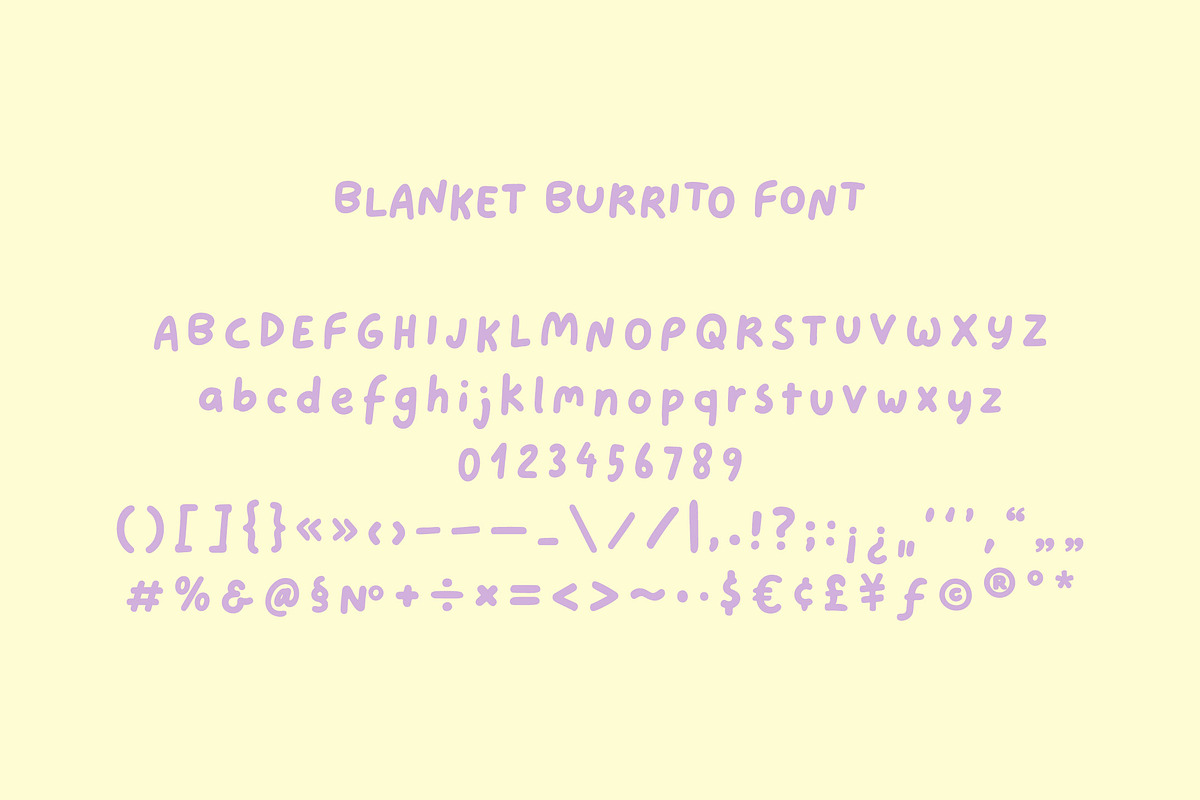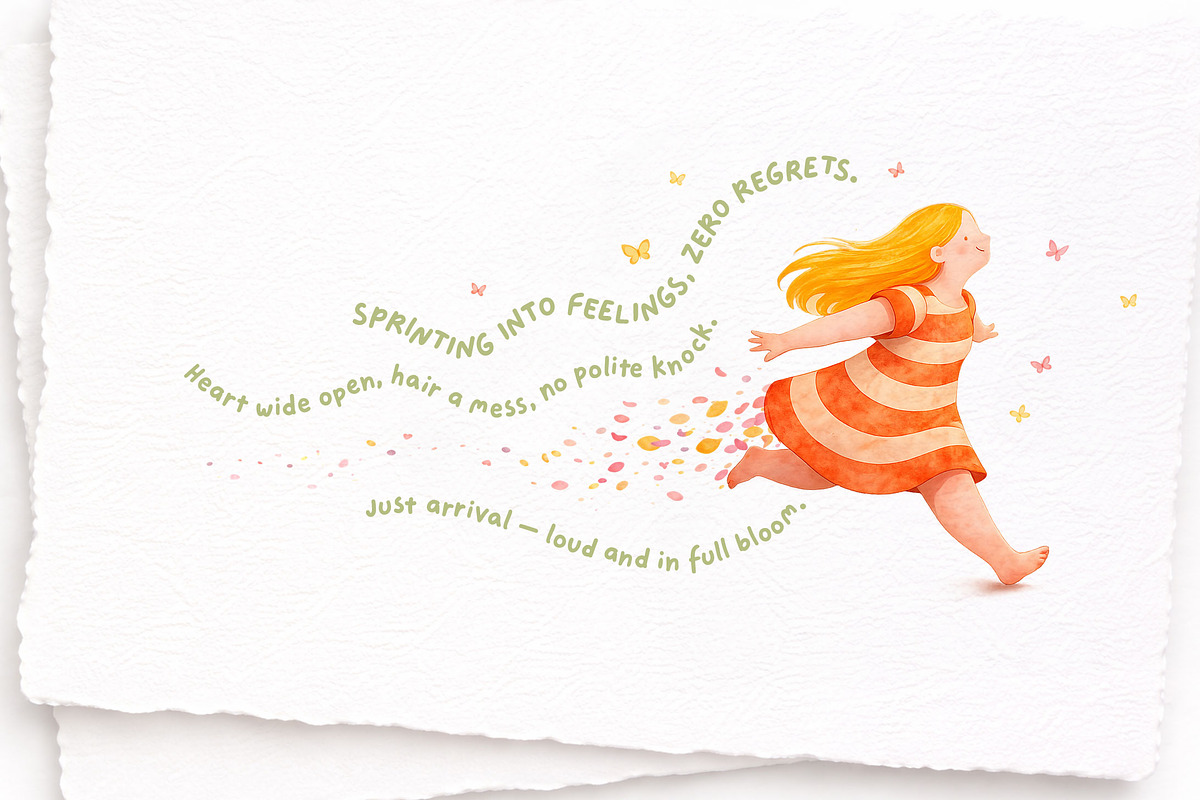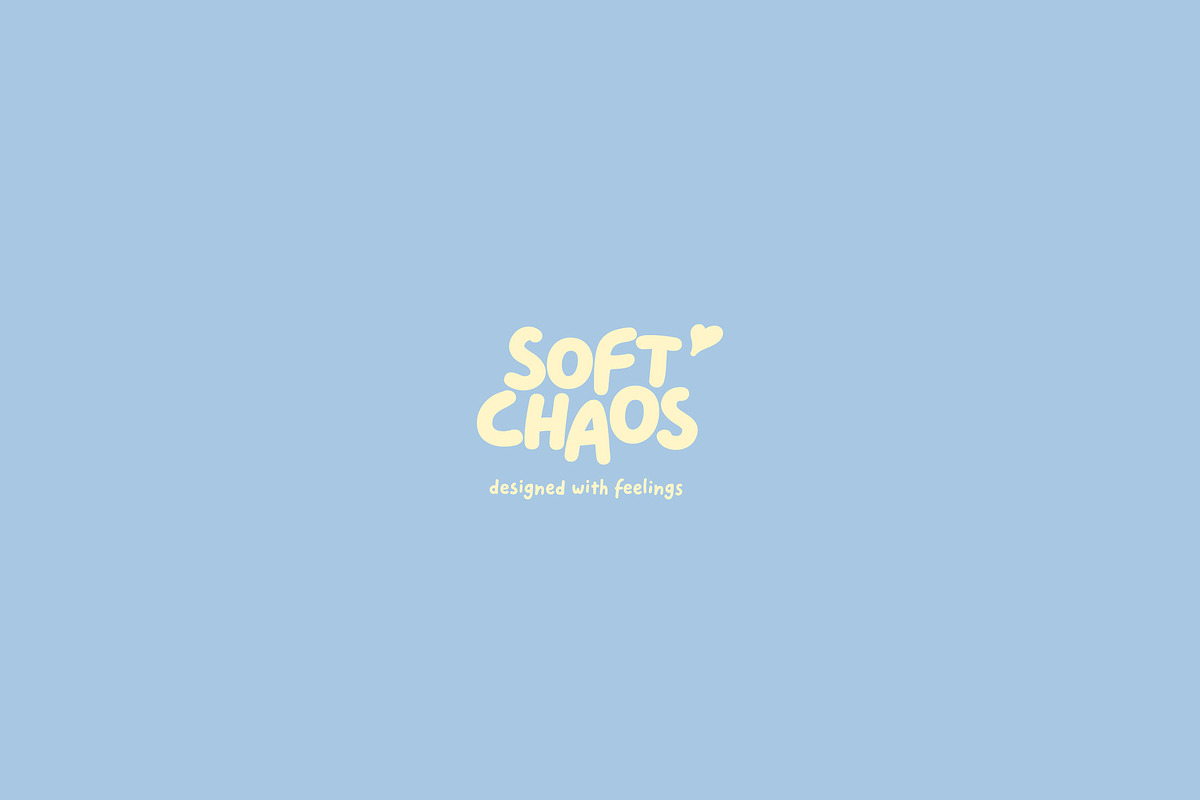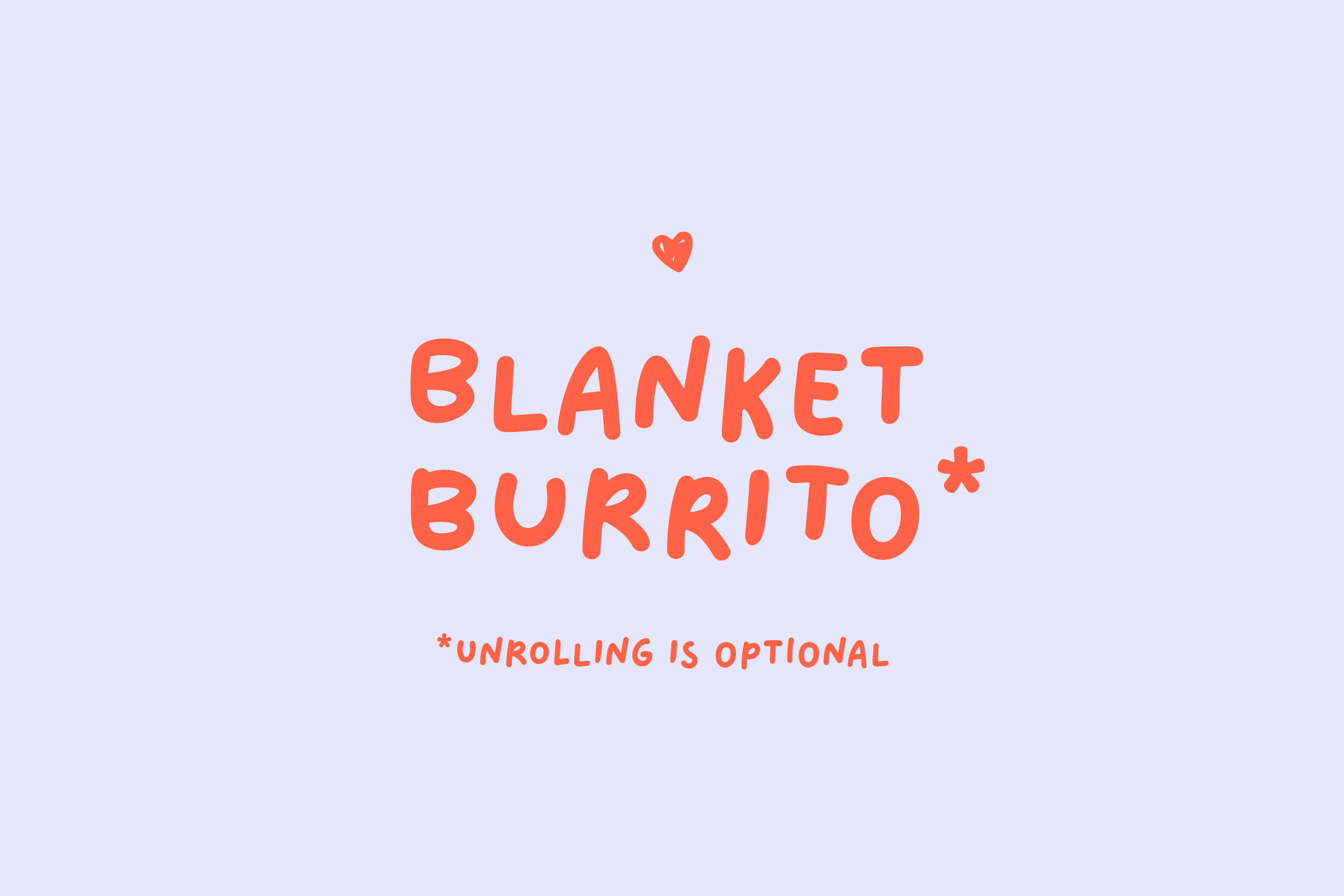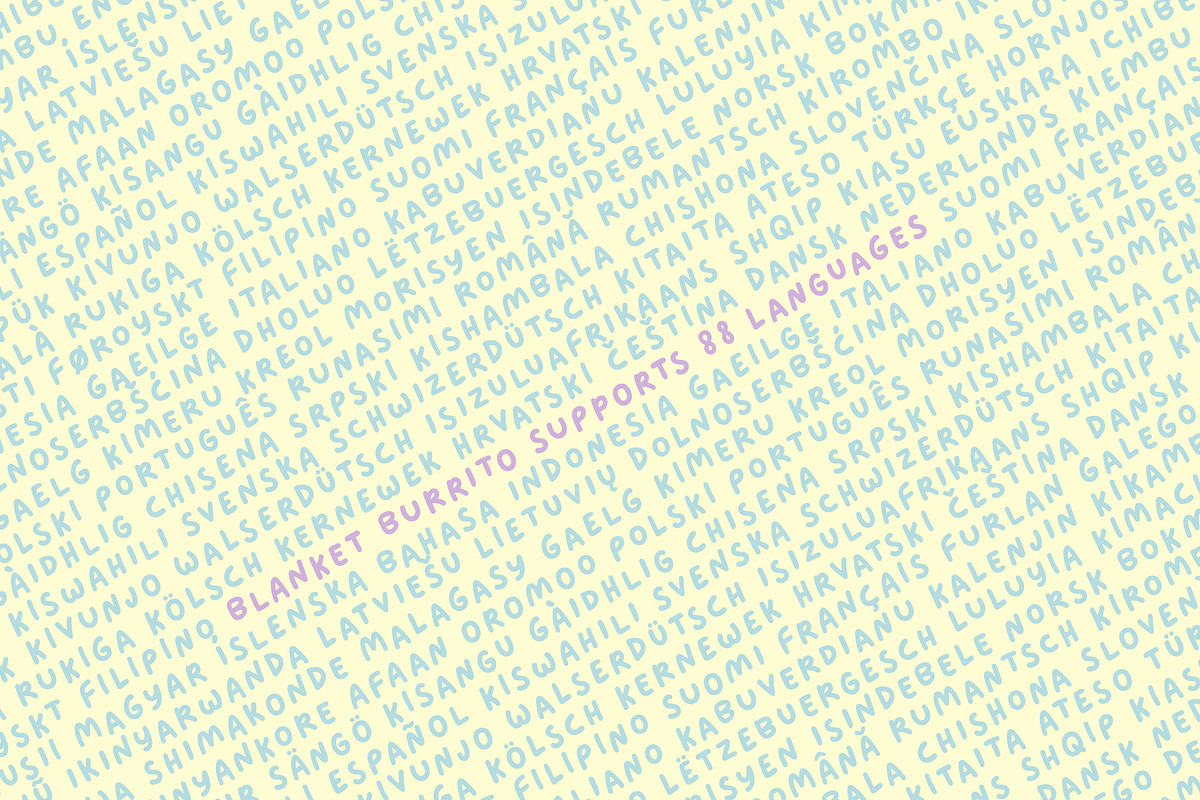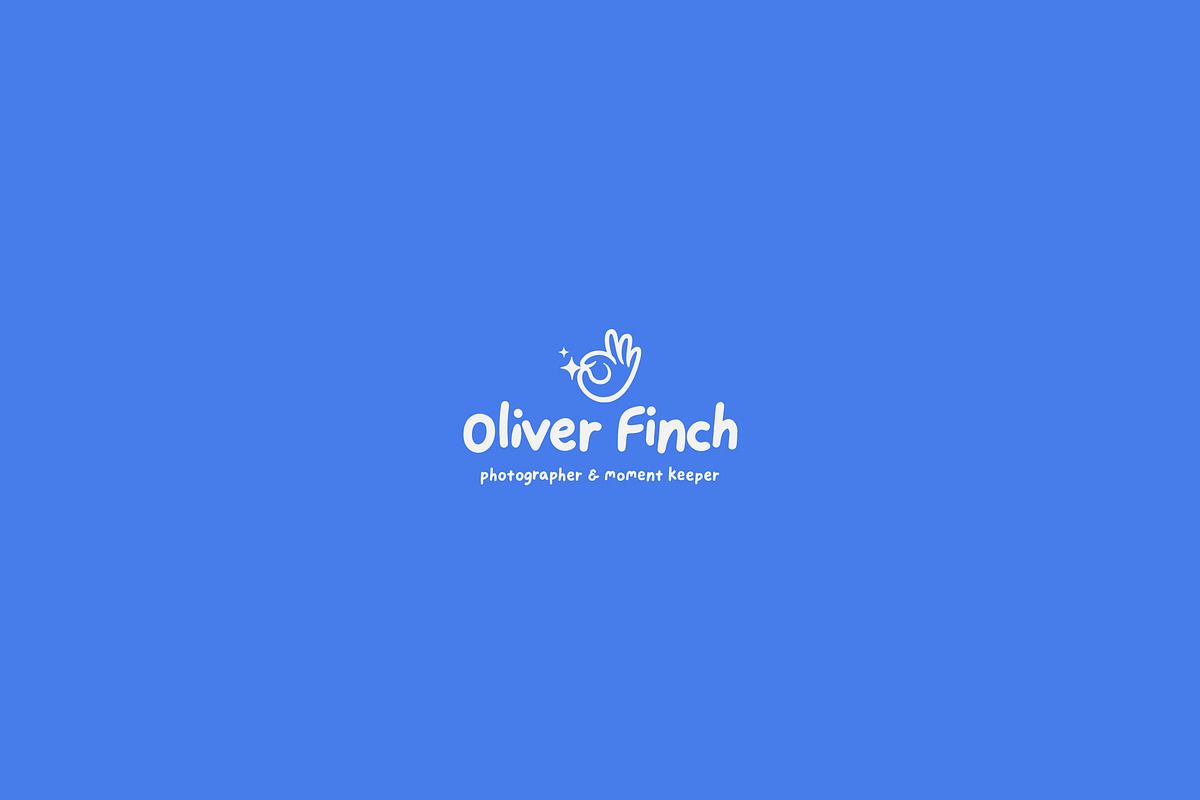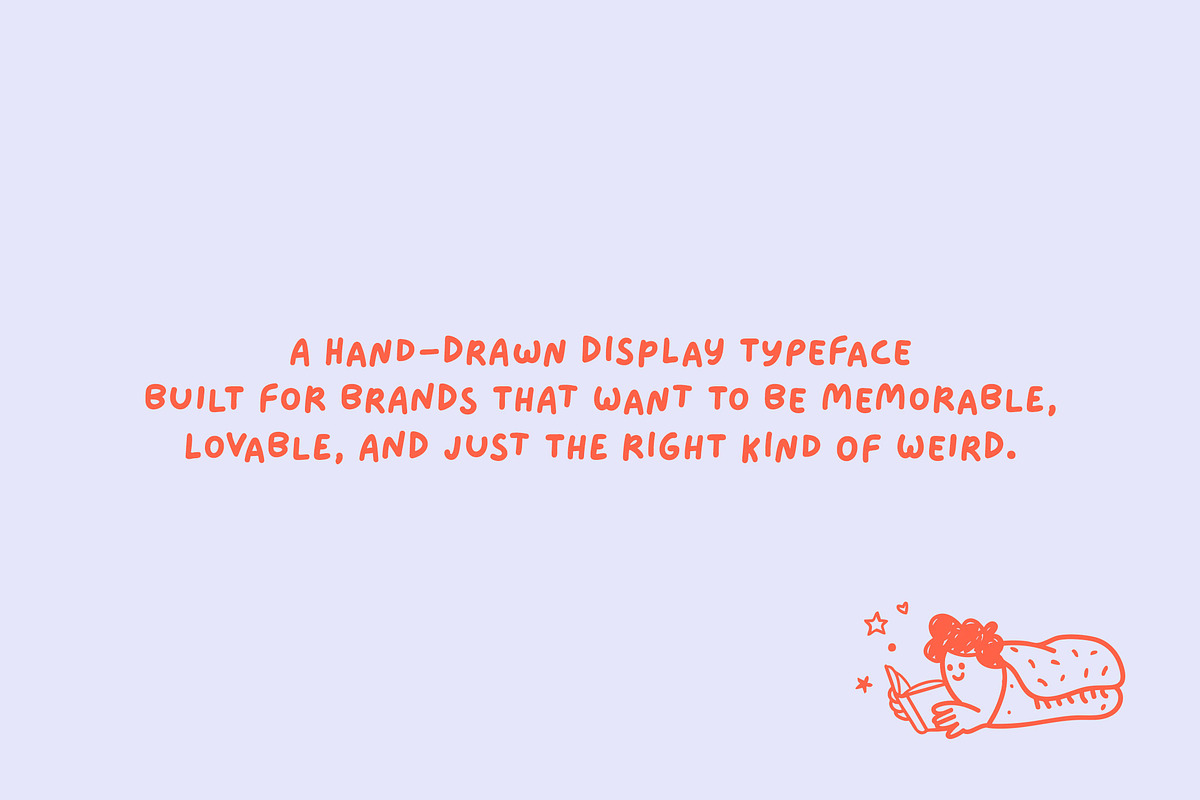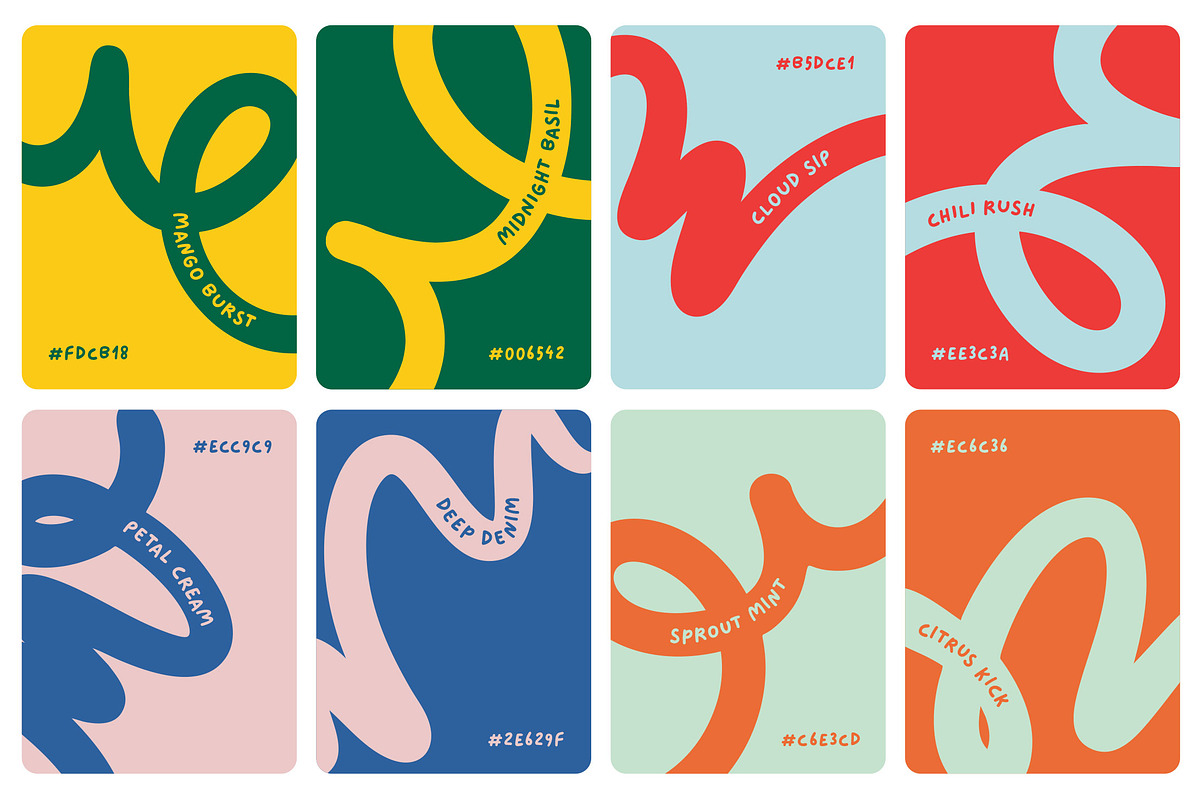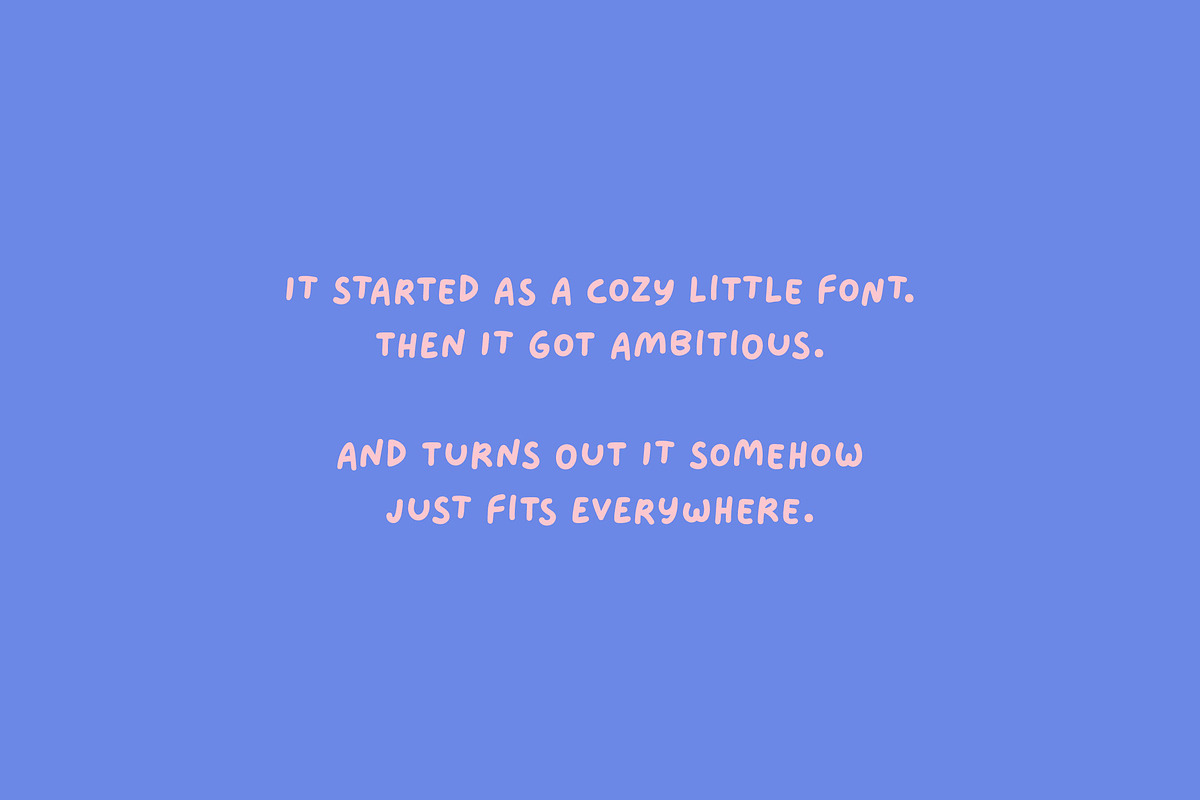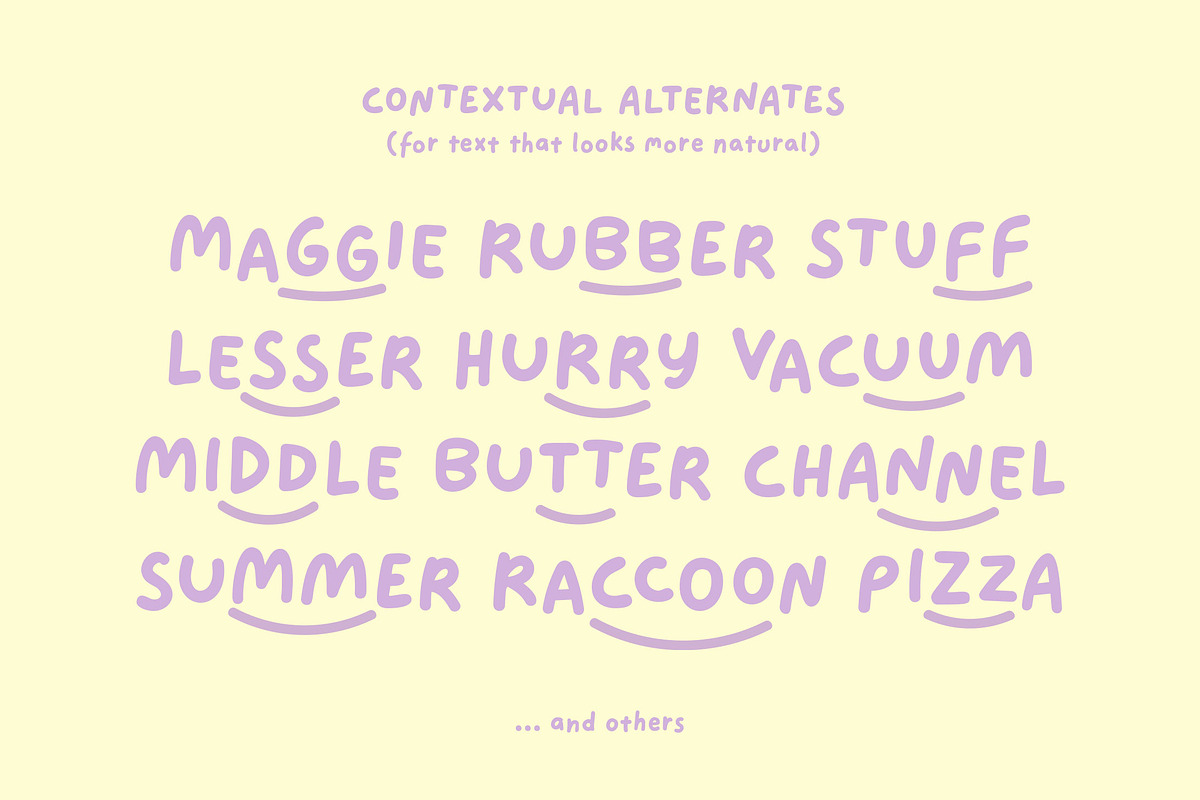
Blanket Burrito — Handwritten Font
Helvetica walks into a bar. This font stayed home — wrapped in a blanket, eating snacks, and having the time of its life.
That's the whole vibe, actually.
Meet Blanket Burrito: a hand-drawn display font that can be described as "playful", "chunky", "cozy", and "why don't I have this already".
It has the kind of personality that makes your designs feel genuinely human — and it works for the funny stuff and the heartfelt stuff, sometimes on the same poster.
- Indie food & beverage branding and packaging
- Sticker packs, merch, and zine covers
- Mental health, self-care, and wellness brands
- Social media content and quote graphics
- Children's products, greeting cards, and gifts
- Logos and wordmarks for cozy lifestyle brands
Full list of supported languages: Afrikaans, Albanian, Asu, Basque, Bemba, Bena, Breton, Catalan, Chiga, Colognian, Cornish, Croatian, Czech, Danish, Dutch, Embu, English, Esperanto, Estonian, Faroese, Filipino, Finnish, French, Friulian, Galician, German, Gusii, Hungarian, Icelandic, Indonesian, Irish, Italian, Kabuverdianu, Kalenjin, Kamba, Kikuyu, Kinyarwanda, Latvian, Lithuanian, Lower Sorbian, Luo, Luxembourgish, Luyia, Machame, Makhuwa-Meetto, Makonde, Malagasy, Manx, Meru, Morisyen, North Ndebele, Norwegian Bokmål, Norwegian Nynorsk, Nyankole, Oromo, Polish, Portuguese, Quechua, Romanian, Romansh, Rombo, Rundi, Rwa, Samburu, Sango, Sangu, Scottish Gaelic, Sena, Serbian, Shambala, Shona, Slovak, Slovenian, Soga, Somali, Spanish, Swahili, Swedish, Swiss German, Taita, Teso, Turkish, Upper Sorbian, Uzbek (Latin), Volapük, Vunjo, Walser, Zulu.